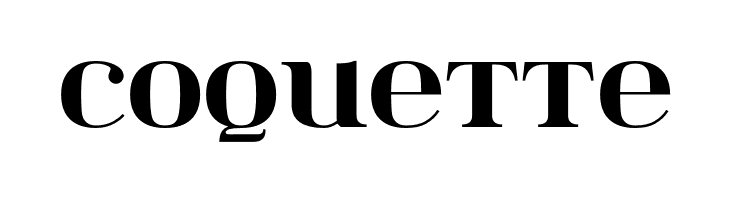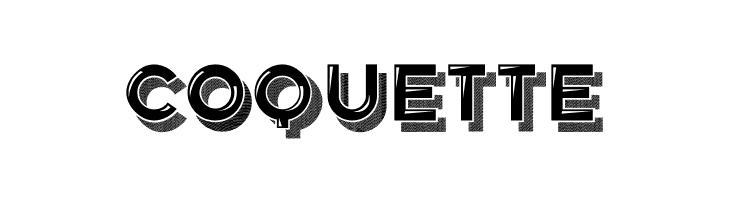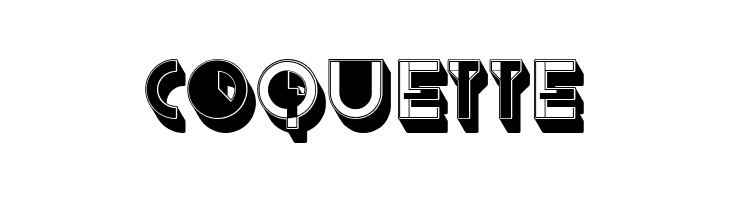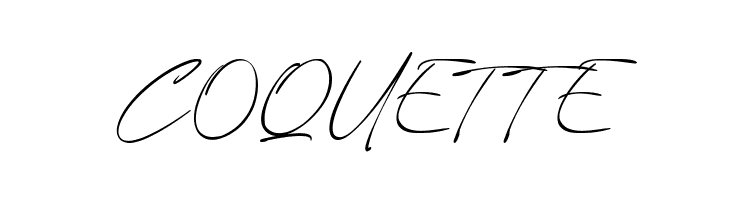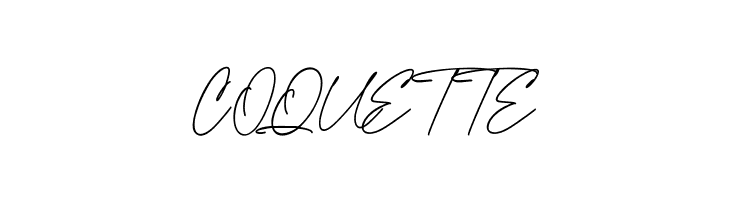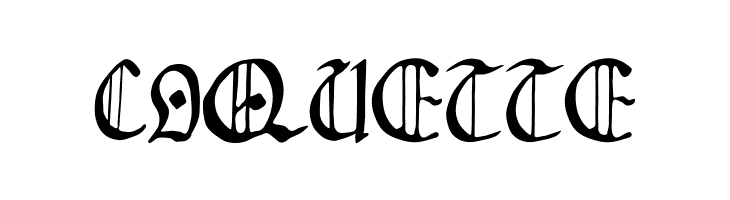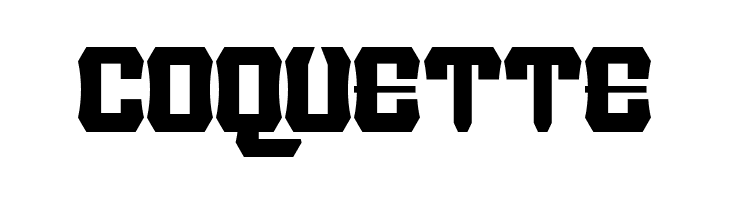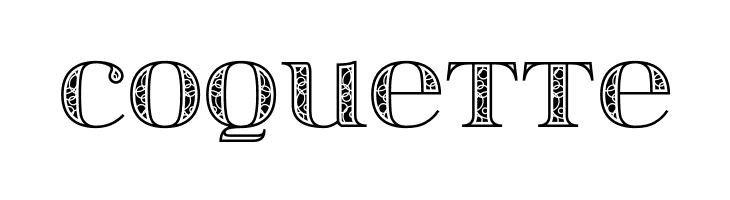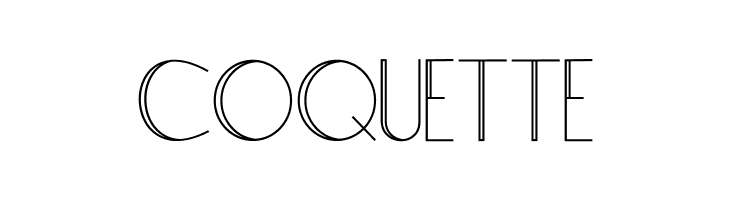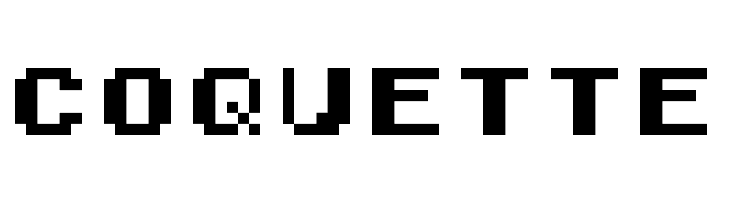
A graceful, cursive script with elegant, elongated letterforms.
A bold, three-dimensional font with an industrial, vintage aesthetic.
A flowing, cursive script font with elegant, interconnected letters.
A bold, textured script font with a hand-painted, artistic style.
A geometric, art deco-inspired font with tall, narrow letterforms and sharp angles.
A modern, geometric font with an Art Deco influence, featuring thin, elongated letterforms.
A graceful and flowing script font with elegant, connected characters.
A graceful and flowing script font with elegant, connected cursive letters.
A bold, three-dimensional font with a modern, shadowed design.
An elegant and flowing script font with a handwritten appearance.
A graceful and elegant script font with smooth, connected strokes and subtle flourishes.
A bold, three-dimensional font with a modern, geometric style.
A playful, handwritten font with irregular strokes and a casual style.
A dripping, liquid-like font ideal for dramatic and eerie designs.
A bold, pixelated font with a retro, video game-inspired style.
A bold, high-contrast serif font with elegant curves and pronounced serifs.
A bold, classic serif font with strong strokes and pronounced serifs.
A bold, decorative font with a vintage double-line shadow effect.
An ornate, decorative serif font with intricate interior patterns.
A decorative outline font with a hollow, airy appearance.
A casual, handwritten font with a playful and informal style.
A playful, handwritten font with a modern, clean style.
A bold, gothic-inspired font with intricate, medieval-style characters.